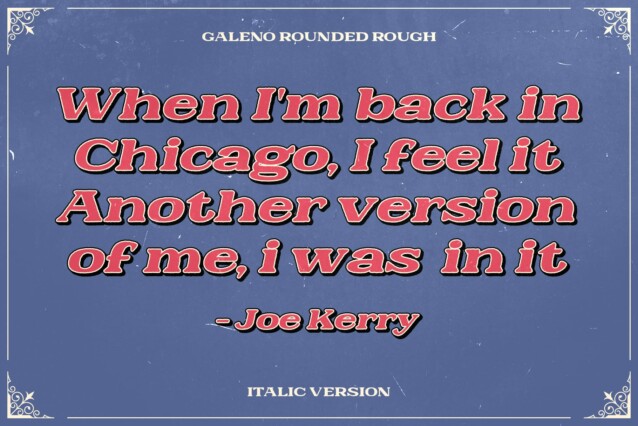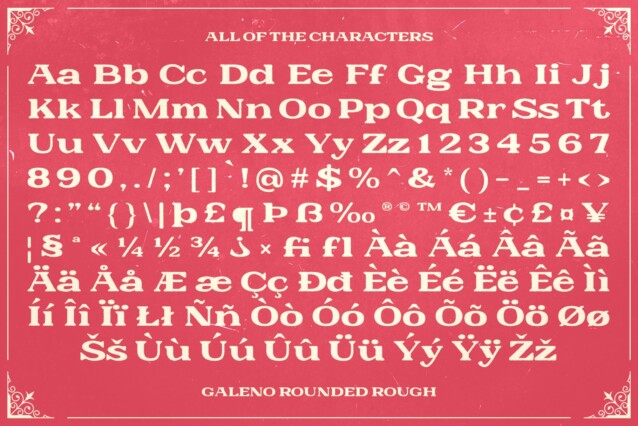
Galeno Rounded Rough Font
Galeno Rounded Rough Font is a serif font designed to capture the essence of nostalgia with its expanded form and rounded edges. This font blends classic elegance with a distinctively weathered look, making it perfect for retro-themed projects that aim to evoke a sense of the past.
Expanded Form with Rounded Edges
The font’s expanded letterforms offer a bold, retro aesthetic, while the rounded edges provide a softer, more approachable feel. The rough texture adds an authentic, aged quality, enhancing the font’s vintage appeal.